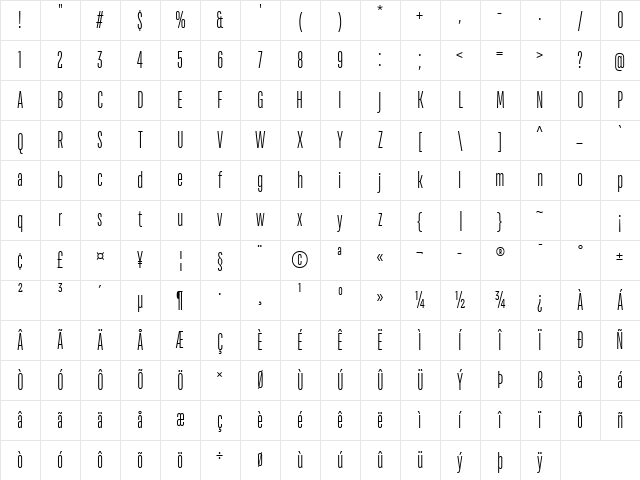
Complete TT Bluescreens Trial Light glyph index. Displaying only characters natively supported by TT Bluescreens Trial Light font.
TT Bluescreens Trial is a composed and adaptable typeface that performs quietly and consistently across a wide range of design contexts. Its slender proportions lend an understated elegance to any composition.